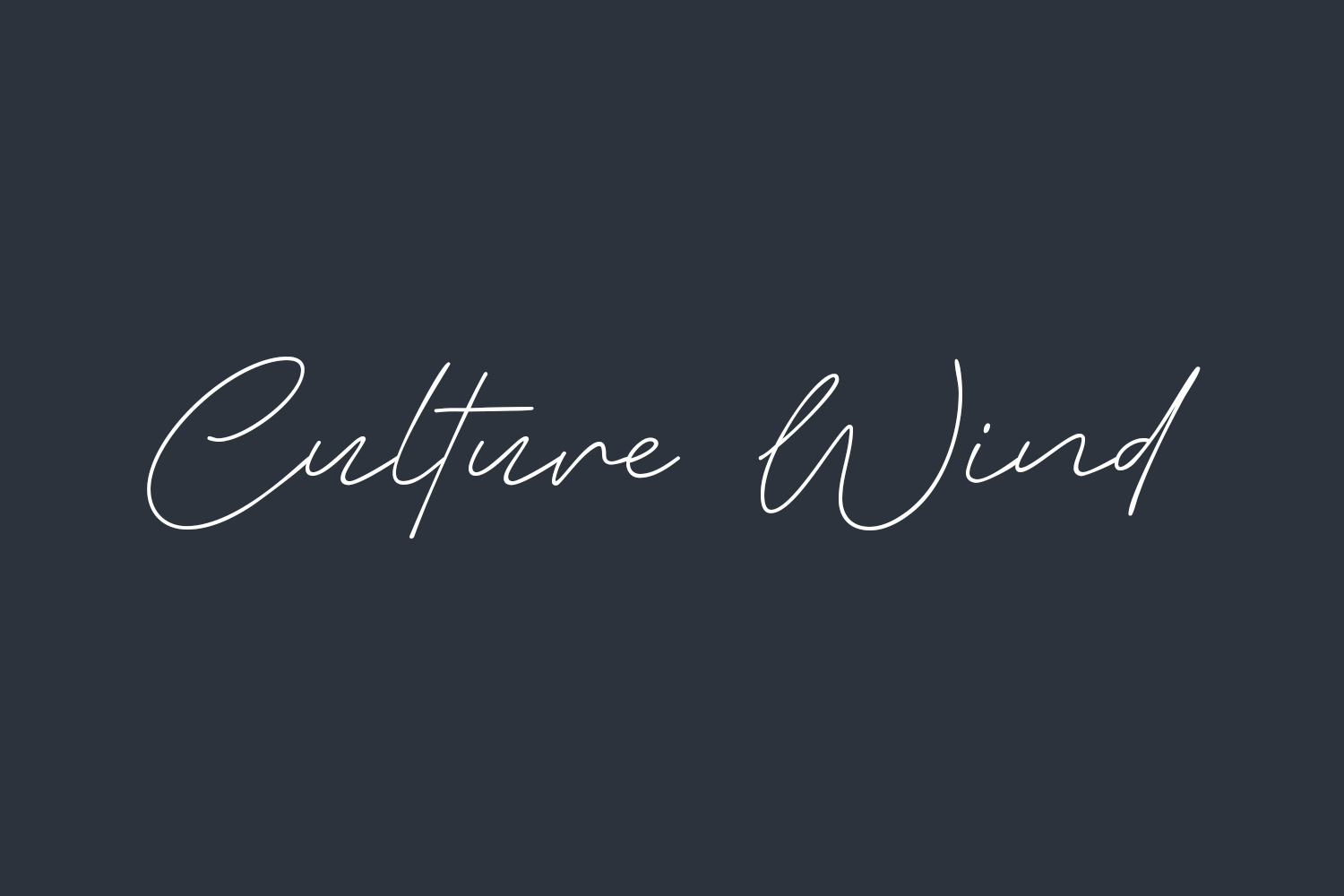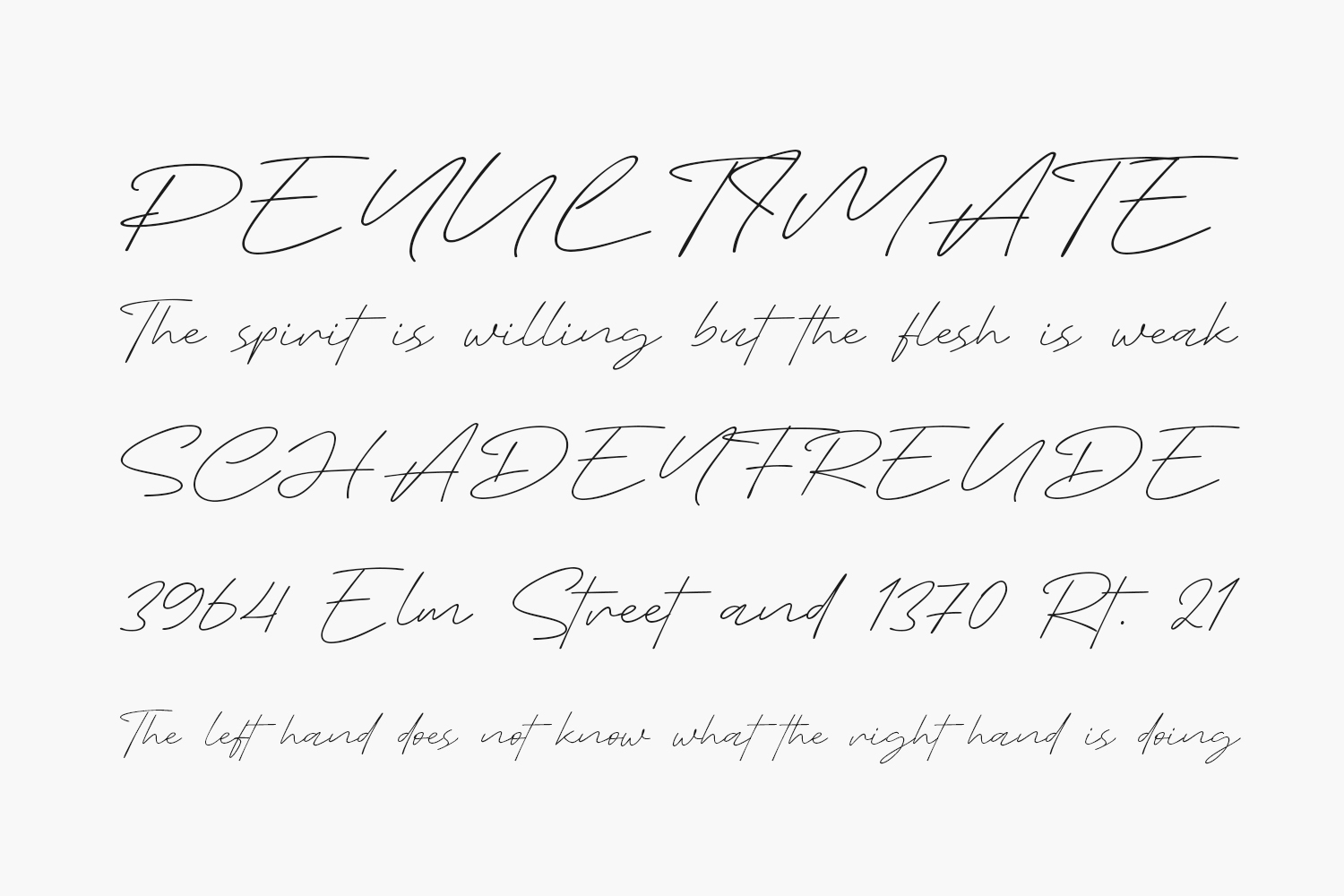
Culture Wind Free Font is a sophisticated and contemporary script font that exudes cleanliness and style. Ideal for a wide range of projects, including posters, logos, magazines, book covers, banners, and more. Elevate your designs with this exceptional font, seamlessly adaptable to a diverse array of creative projects, and experience the remarkable difference it can make. Culture Wind Free Font is free for personal use only. Please purchase the full version for commercial use.